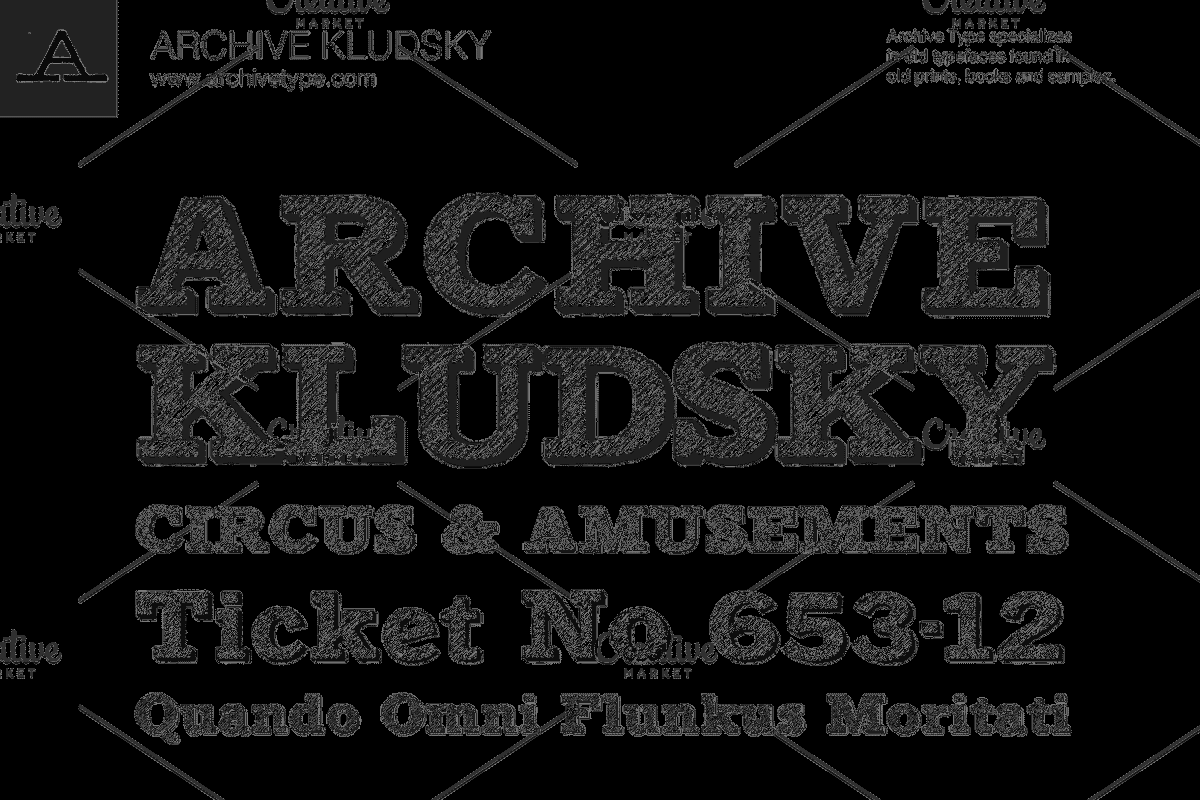
Archive Kludsky Font Free Download is a distinctive and creative display typeface designed with bold and dynamic letterforms. Its unique and artistic style makes it ideal for headlines, posters, branding, logos, and any project that requires a strong visual presence. The combination of geometric precision and fluid design gives Archive Kludsky an innovative, modern feel.
Perfect for projects that require a mix of personality and readability, this font brings character to both print and digital designs. Whether you're working on a creative campaign or a contemporary brand, Archive Kludsky adds flair and style to your typography.